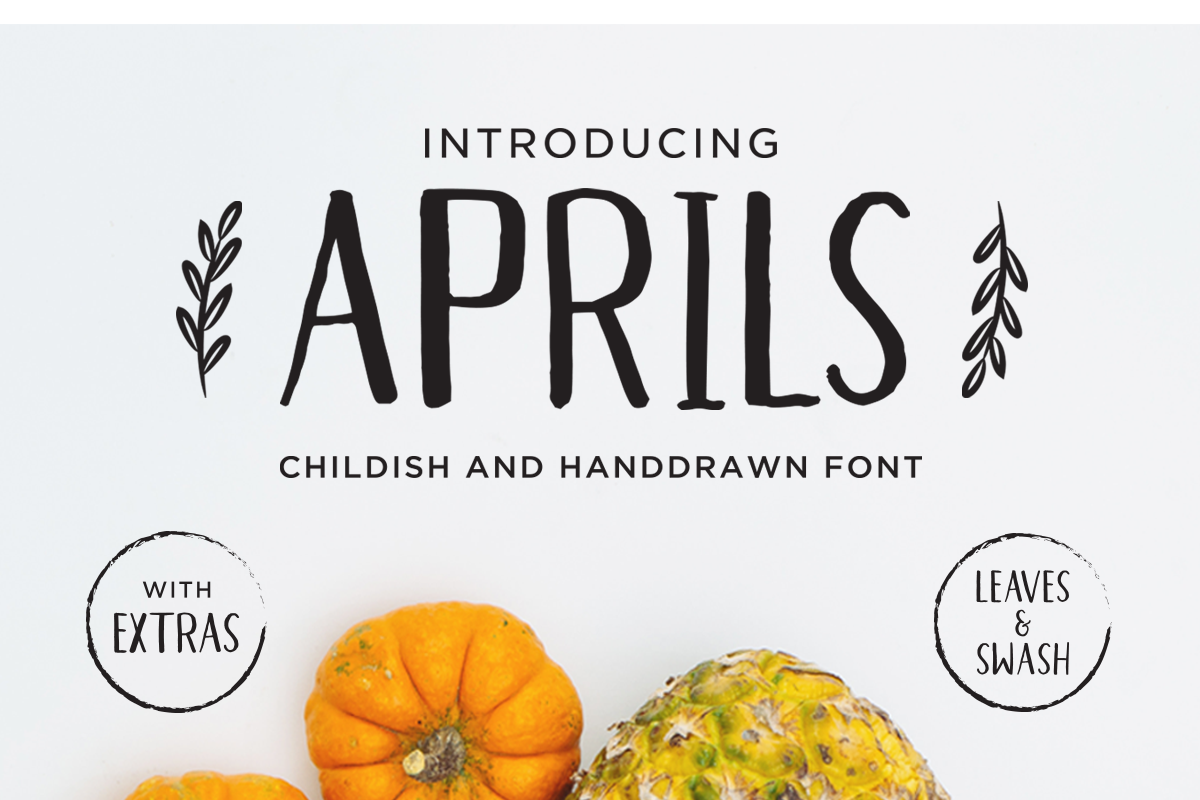
Aprils Sans Handdrawn Font Free Download is a charming and playful hand-drawn sans-serif typeface designed to add personality and warmth to your designs. With its casual, organic feel, this font is perfect for creating fun logos, personal branding, social media graphics, children's products, and any design that benefits from a friendly, hand-crafted touch.
Using the Aprils Sans Handdrawn Font Free Download adds a personal, authentic feel to your typography. Whether you're designing a whimsical logo, crafting an engaging greeting card, or creating vibrant digital content, this font brings a fresh, creative touch to your work.